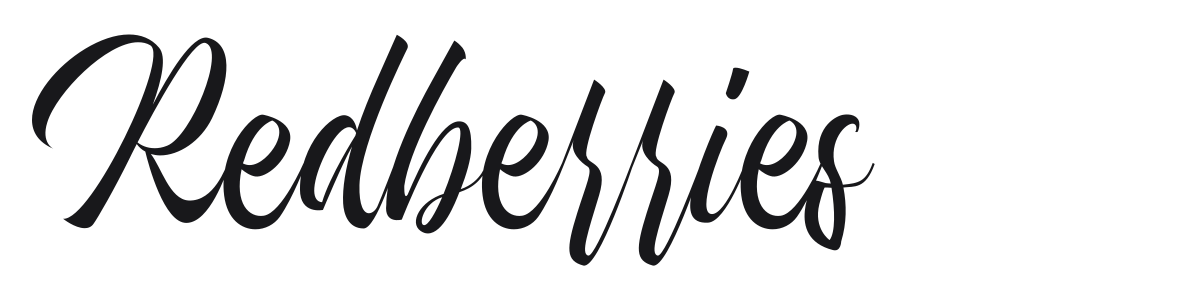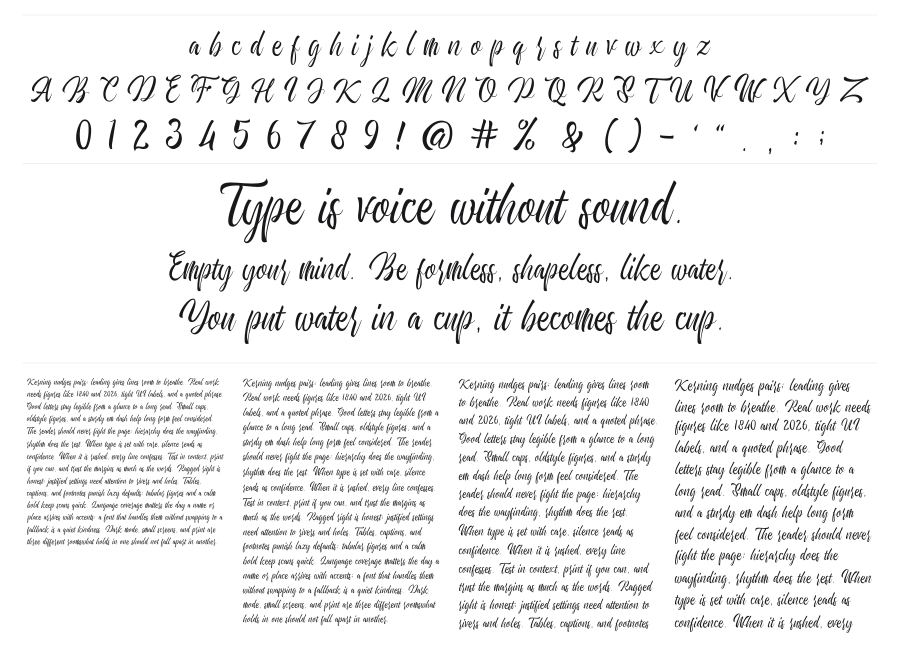
Redberries
Redberries is a high-contrast brush script with a lively, bouncy rhythm and long looping ascenders that overlap and intertwine. The thick-to-thin stroke variation gives it genuine calligraphic character without feeling stiff or formal. It thrives on wedding stationery, product packaging, and any brand identity that wants warmth and handmade energy.